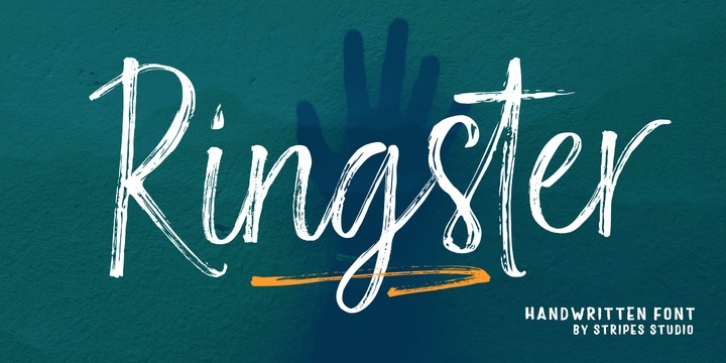
Ringster was designed by Yur Lis and published by Stripes Studio. Ringster contains 2 styles and family package options.
Ringster is a new font that is brushed and very attractive with a natural, detailed and perfect texture. It also includes a weight with underline swashes.
Ringster is perfect for logos, product packaging, posters, invitations, brand projects, greeting cards, news, blogs, and everything where you wish to add a personal charm.